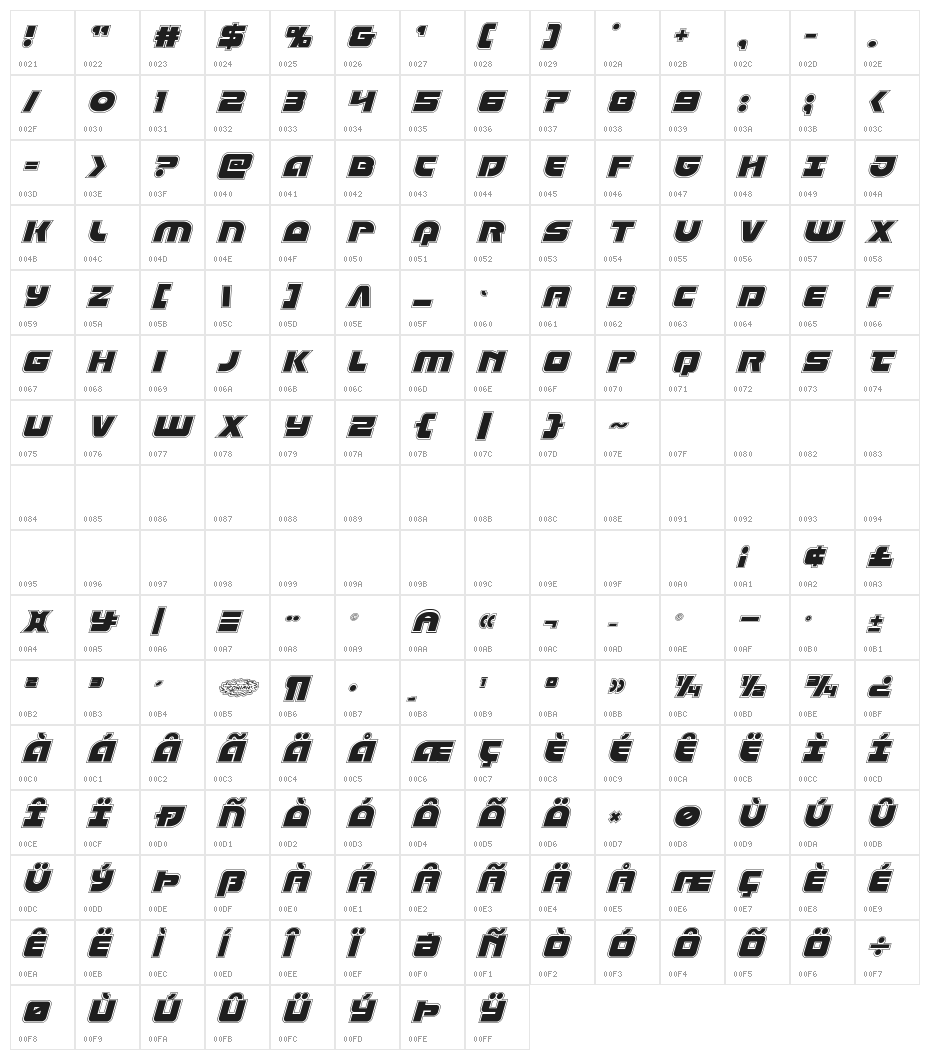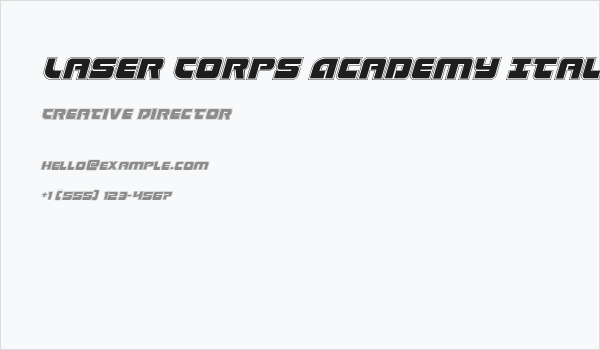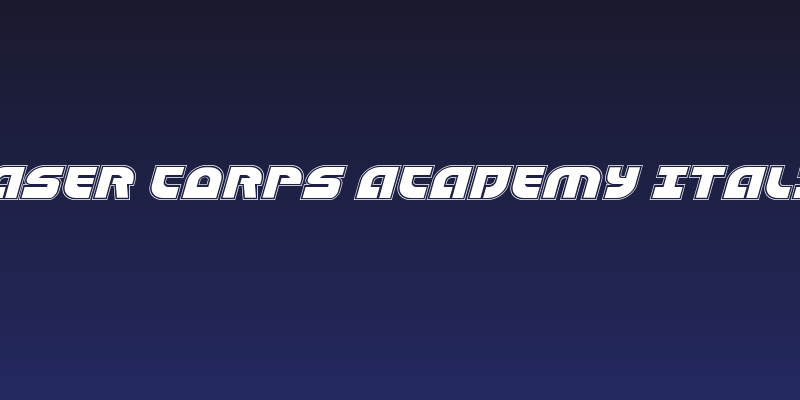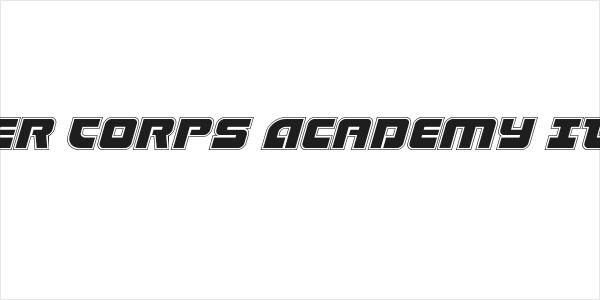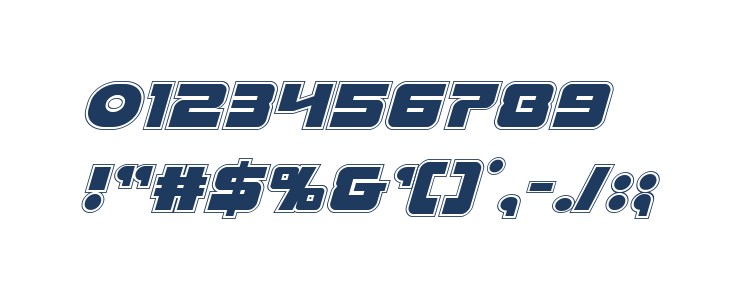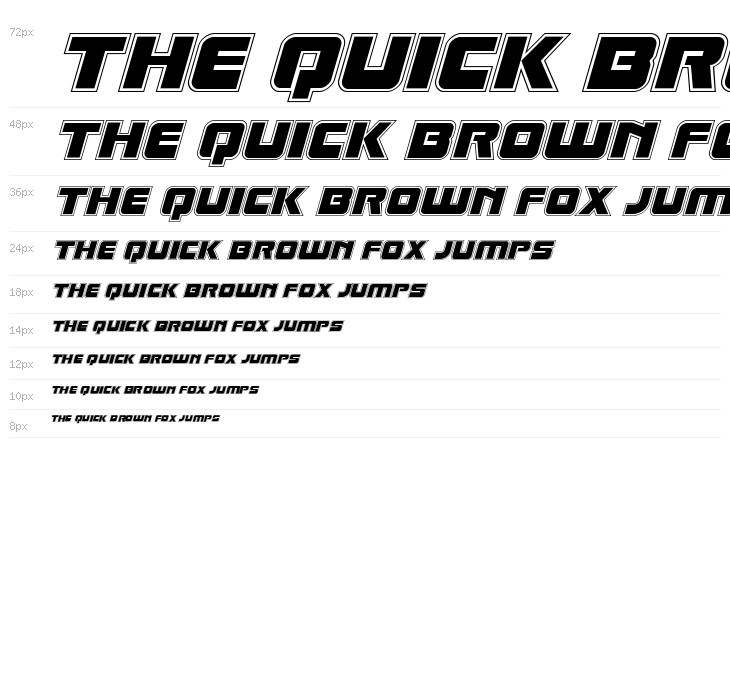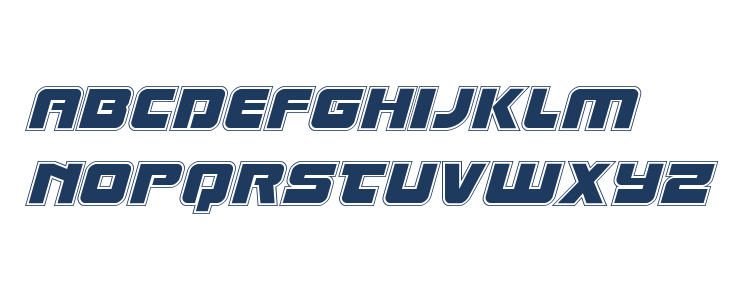
Laser Corps Academy Italic Font
Laser Corps Academy Italic Description
This font features a bold, futuristic design with a strong emphasis on geometric shapes and sharp angles. The characters are italicized, giving a sense of motion and speed, which is enhanced by the thick, uniform strokes. The uppercase and lowercase letters maintain a consistent style, with a slight slant that adds dynamism. The numbers and special characters are designed to match the overall aesthetic, ensuring a cohesive look across all text elements. The font's boldness and unique style make it ideal for projects that require a modern and impactful appearance.
| Proposed Projects | Ideal for sci-fi themed projects, video game titles, technology branding, and dynamic posters. |